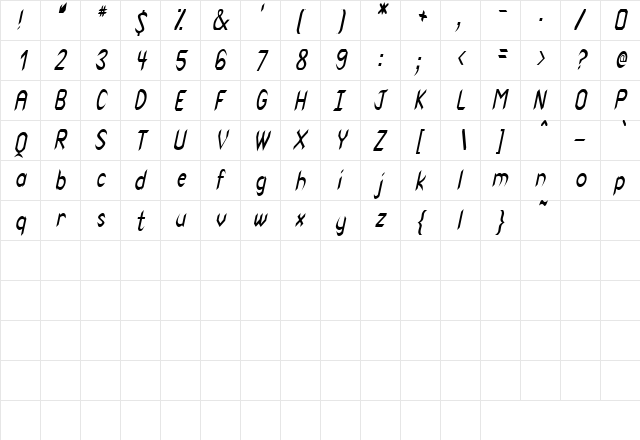
VenomCondensed Oblique Font Preview
Design Context for VenomCondensed Typeface
VenomCondensed takes a measured approach to typography — its balanced proportions and neutral character make it a reliable workhorse for both digital and print work. Its italic angle brings a sense of urgency and motion to the letterforms. Its narrow stance lets it pack a punch even in space-constrained designs.
Pro Tip: Try VenomCondensed for annotation and caption copy alongside an upright companion — the contrast in angle creates a dynamic but ordered typographic system.